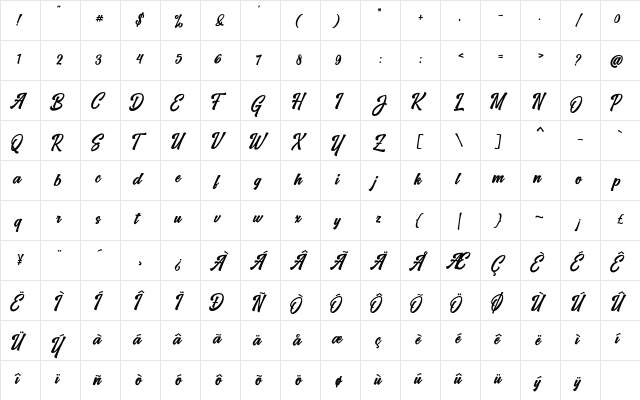
Vrindals Script Dafont Regular
| Foundry | FERDIANSYAH_PointlabSTD |
| Designer | FERDIANSYAH_PointlabSTD |
Design Context for Vrindals Script Dafont Typeface
Vrindals Script Dafont brings a calligraphic fluidity to the page — its connecting strokes and expressive curves give it an unmistakably human quality.
Font Pairing: Combine Vrindals Script Dafont with a simple geometric sans for maximum contrast — the tension between flowing curves and clean structure is a classic typographic pairing.